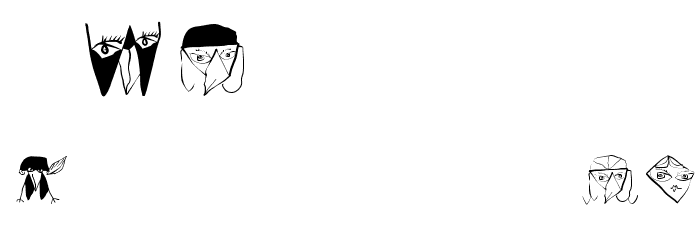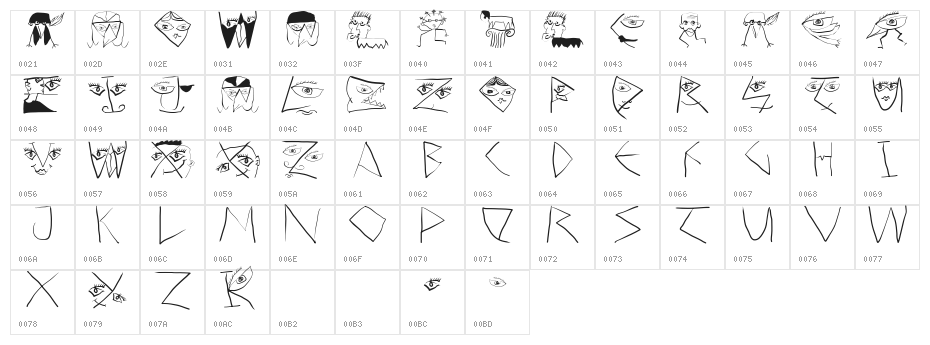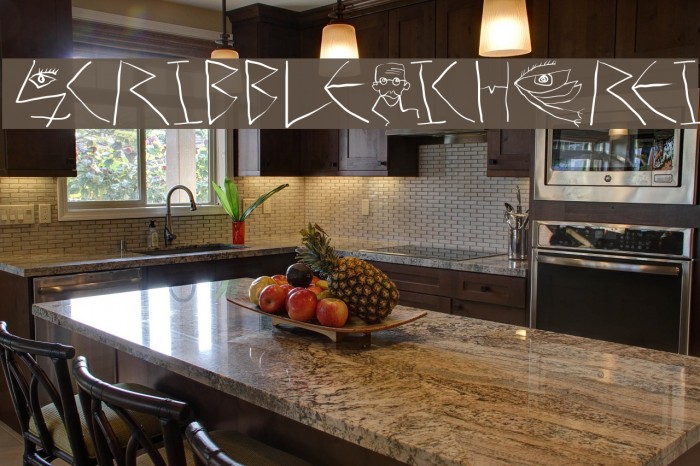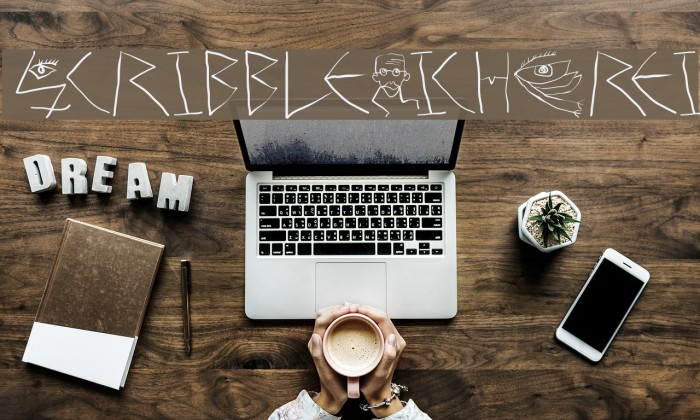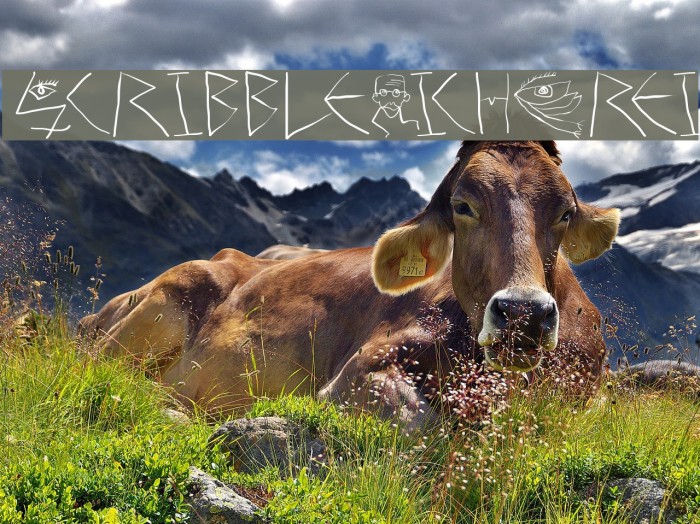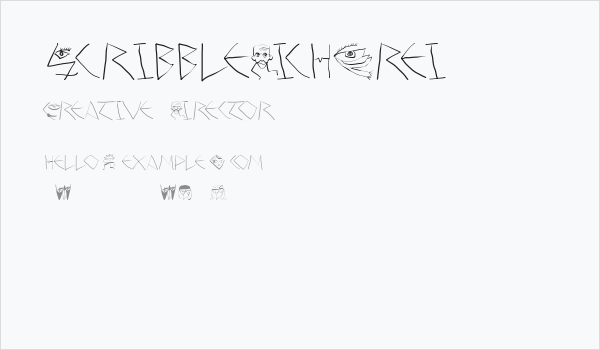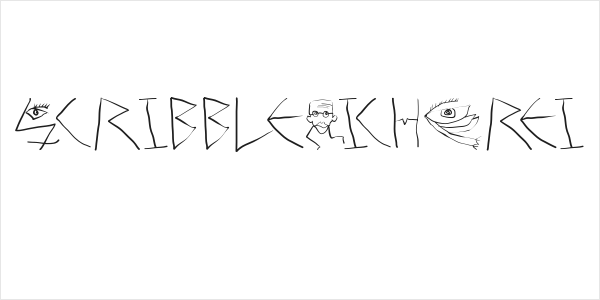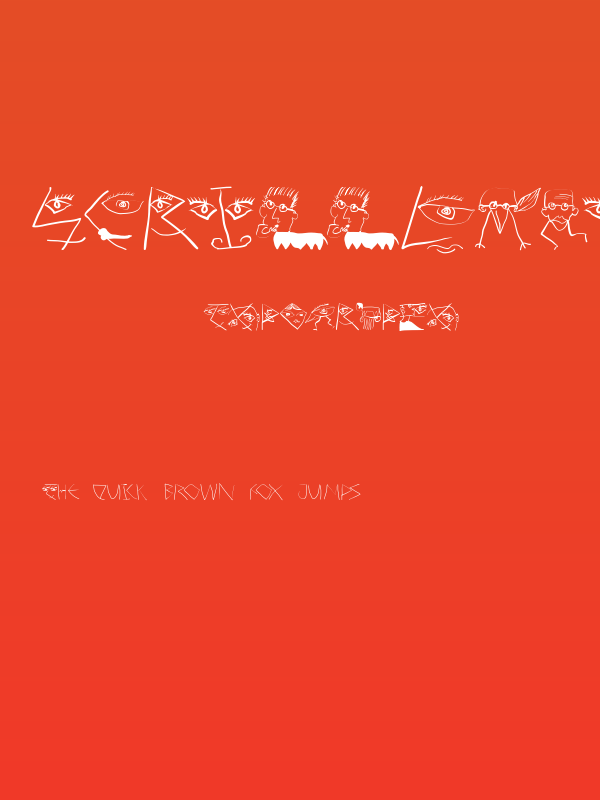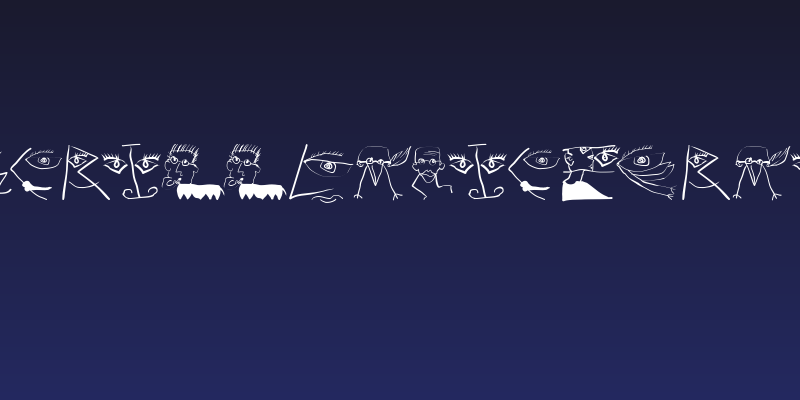
ScribbleDichFrei Font
ScribbleDichFrei Description
This font is a highly creative and artistic display typeface that incorporates whimsical and illustrative elements into each character. The letters are designed with unique, hand-drawn features that resemble doodles or sketches, giving them a playful and imaginative appearance. Each character is distinct, often incorporating facial features or abstract designs, making the font stand out as a piece of art in itself. The overall style is unconventional and expressive, ideal for projects that require a touch of creativity and individuality. The font's irregular shapes and lines contribute to its charm, making it suitable for artistic and experimental designs.
| Overall Style | Artistic, Whimsical, Creative |
| Use Case | Artistic projects, Illustrations, Creative branding |
| Proposed Projects | Ideal for creative projects such as children's book illustrations, artistic posters, unique branding, and experimental graphic design. |